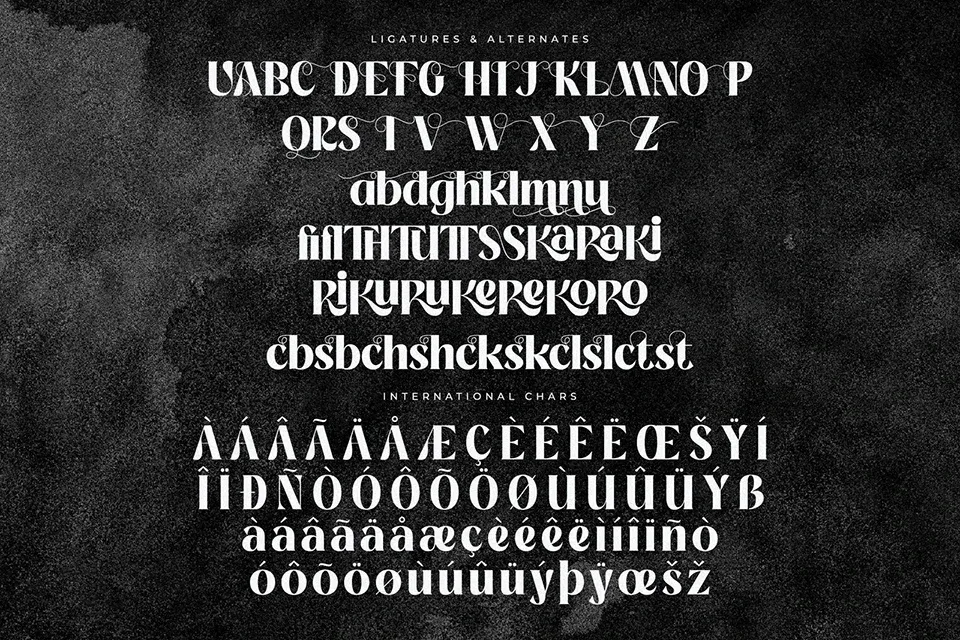
Mercado Font
Mercado Font is a modern and classic serif font with a unique style and contemporary look. It’s perfect for elegant and luxurious logos, book or movie titles, fashion brands, magazines, clothing, lettering, quotes, and more.